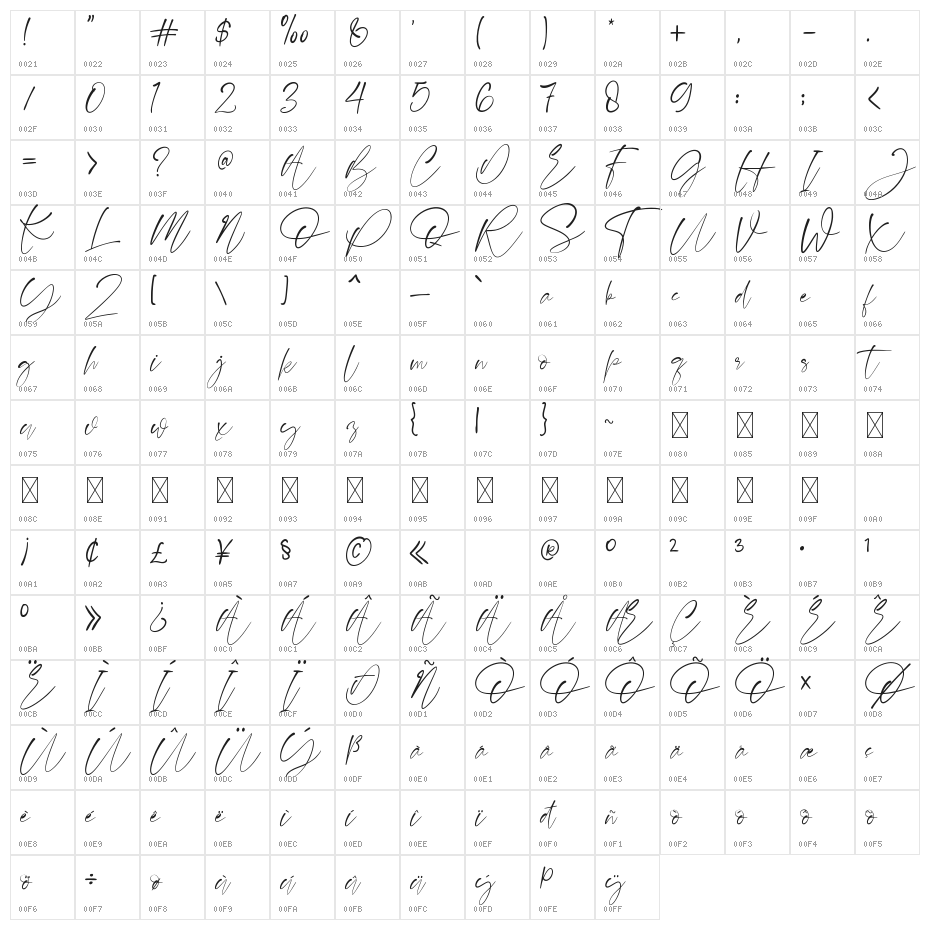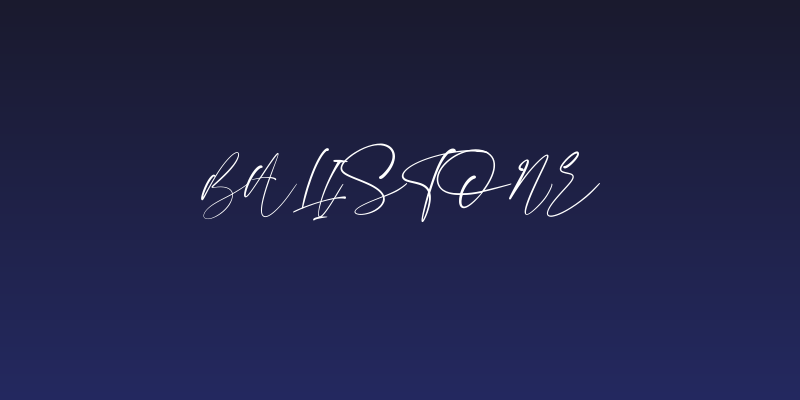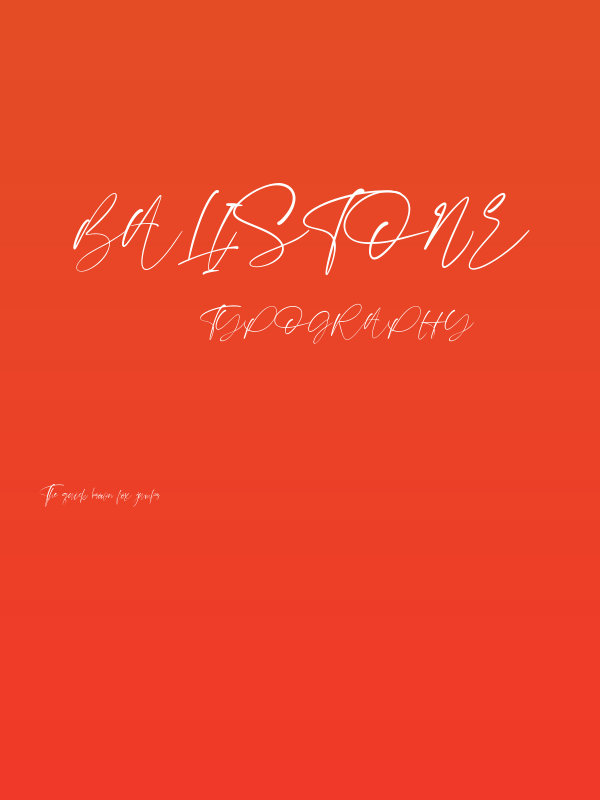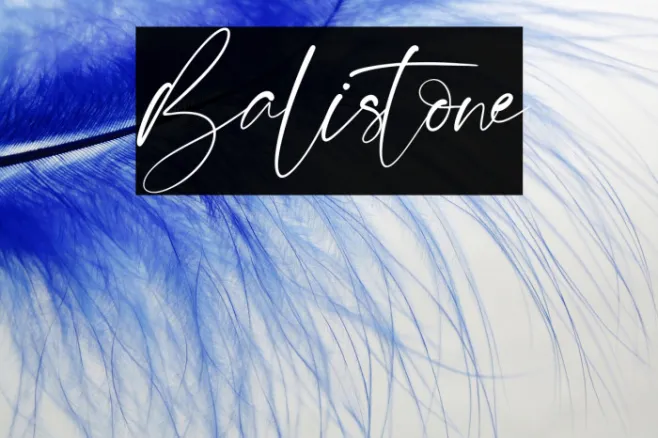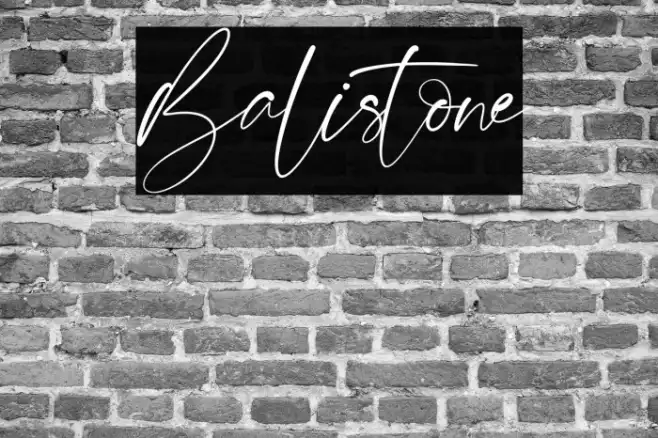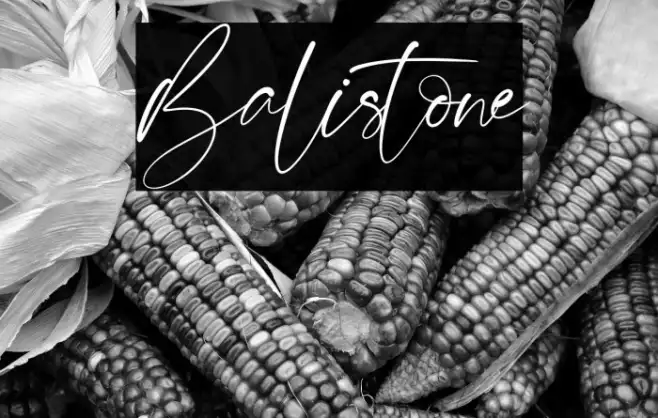
Balistone Font
Balistone Description
This font exhibits a flowing, cursive style that mimics elegant handwriting. The characters are interconnected with smooth, sweeping lines, giving it a dynamic and fluid appearance. The uppercase letters are slightly larger and more elaborate, while the lowercase letters maintain a consistent flow. The numerals and special characters are designed to match the overall script style, ensuring a cohesive look. The strokes vary in thickness, adding a touch of sophistication and enhancing readability. This font is perfect for projects that require a personal, artistic touch.